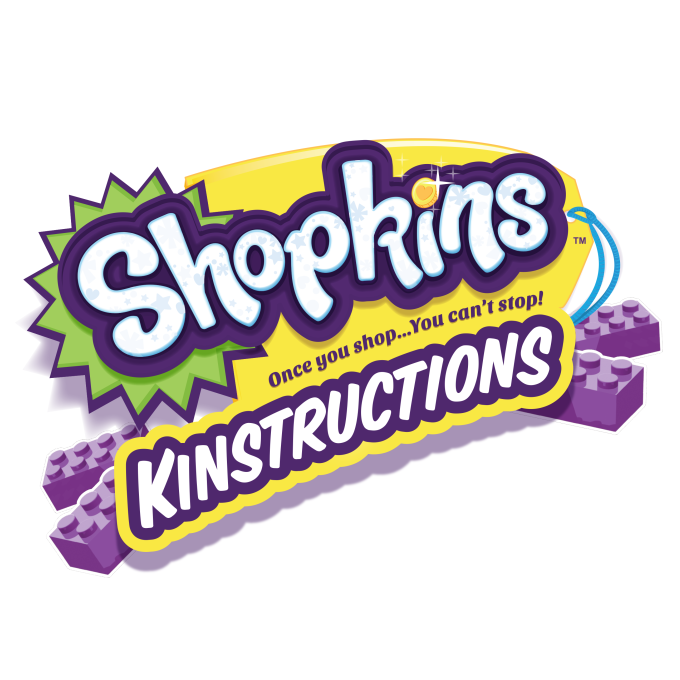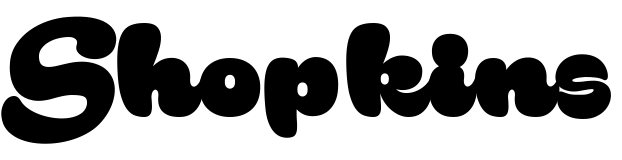
Shopkins Font
EntertainmentShopkins are collectible miniature toys shaped like grocery store items and food products. They are popular with children and have a strong fanbase. The design and creation of Shopkins was done by Moose Toys based in Melbourne, Australia.
The main Shopkins logo appears to have been custom created and a matching font cannot be found. Two fonts with a similar comic style include ''Mr Sunshine Regular'' by Dcoxy Design and ''Rakoon'' by Måns Grebäck. The font used for the Shopkins tagline, “Once you shop, you can’t stop”, is ''Sansita One'' by Omnibus Type. The font used for “Kinstructions” is ''Komika Title Caps'' by Vigilante Typeface Corporation and is also used throughout the official Shopkins website for headlines and titles.